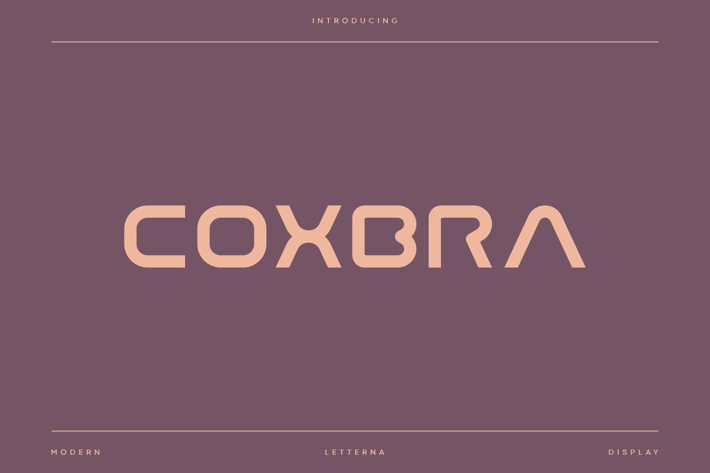
Coxbra - Futuristic font
Coxbra is a smooth and simple linear sans for headline, editorial, branding, packaging, printed materials and typography applications. This font is very futuristic, with a simple appearance that makes this font suitable for logos or branding that requires a touch of modern technology.